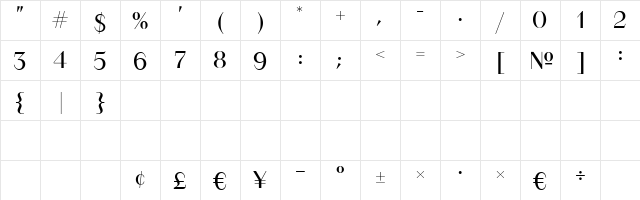
Numbers ValutaSolid Regular
Design Context for Numbers ValutaSolid Typeface
Numbers ValutaSolid is a composed and adaptable typeface that performs quietly and consistently across a wide range of design contexts.